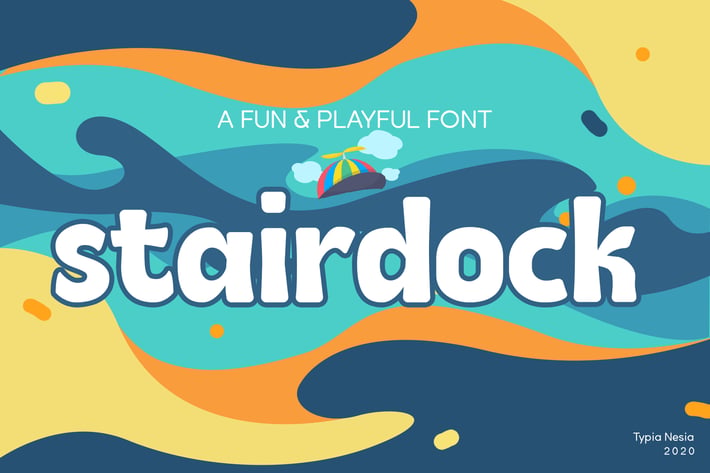
Stairdock - Fun Cute Snack Font
Stairdock - Fun Cute Sans - Kid Snack Font
Suitable for any design needs : kid game logo, kindergarten branding, food & beverage packaging, child kid design, modern advertising design, cartoon, animation, kid book, toys branding, poster quote, book / cover Title, website / blog, card design and any hand-lettered needs.